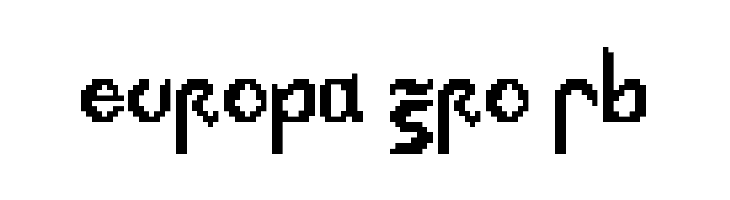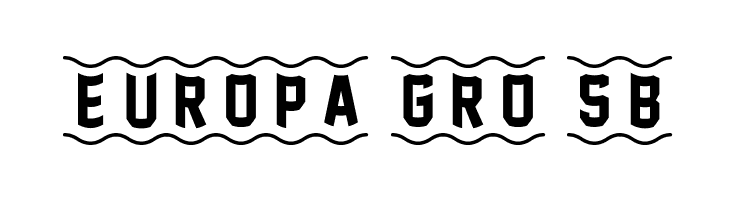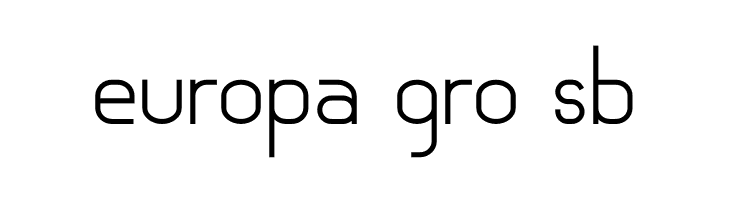
A pixelated, medieval-inspired font with a retro digital aesthetic.
A bold, angular font with a modern, edgy style and a playful wave-like background.